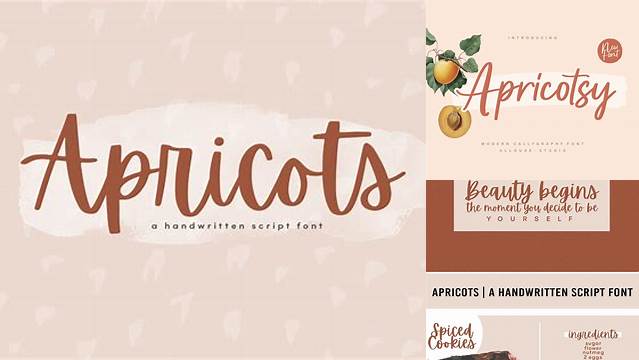
Apricots Font: Free Handwritten Script TTF Download
Are you looking to add a personal and charming touch to your designs? Look no further! In this article, we will explore the beauty and versatility of apricots handwritten script fonts, and how you can download them for free in TTF format. This font style, reminiscent of elegant calligraphy and personalized notes, can significantly enhance the aesthetic appeal of various projects. From invitations and greeting cards to branding materials and digital designs, the apricots handwritten script font brings a unique sense of warmth and authenticity. We'll delve into the characteristics that make this font so special and discuss the multitude of ways you can incorporate it into your creative endeavors. You'll also learn about the technical aspects of using TTF fonts, ensuring seamless integration with your design software. So, let's dive in and discover the wonderful world of apricots handwritten script fonts and how they can elevate your projects to the next level. Whether you're a seasoned designer or a budding creative, this guide will provide you with the information you need to start using this beautiful font today. We'll cover everything from finding reputable sources for free downloads to troubleshooting common issues you might encounter while installing and using the font. By the end of this article, you'll be well-equipped to add a touch of handwritten elegance to all your design projects, making them stand out with a personal and sophisticated flair. Get ready to transform your creations with the timeless beauty of apricots handwritten script fonts!
Why Choose a Handwritten Script Font?
Why should you choose a handwritten script font like the apricots font for your projects? Well, handwritten fonts bring a personal and intimate feel to any design. Unlike the clean and sometimes sterile look of traditional fonts, handwritten scripts mimic the natural flow and imperfections of human handwriting. This characteristic makes them ideal for projects where you want to convey warmth, authenticity, and a personal touch. Think about it: a handwritten font can make an invitation feel more special, a logo more approachable, or a website more inviting. The apricots font, with its unique flourishes and elegant curves, adds a layer of sophistication and charm that is hard to replicate with other font styles. Its versatility also makes it a fantastic choice for a wide range of applications. Whether you're designing wedding invitations, crafting social media graphics, or creating branding materials, this font can seamlessly adapt to your needs. The key is to understand the subtle nuances of the font and how to use it effectively. For instance, pairing it with a simple sans-serif font can create a balanced and visually appealing contrast. Furthermore, using it sparingly can maximize its impact, preventing your design from becoming overwhelming. The apricots handwritten script font truly shines when used thoughtfully, adding a touch of elegance and personality that resonates with your audience. So, if you're aiming to create designs that feel genuine and heartfelt, a handwritten script font like apricots is definitely the way to go. It's about adding that human element, that little bit of imperfection that makes your work stand out and connect with people on a deeper level. Itβs this connection that makes handwritten fonts so popular and effective in the world of design. It is time to take your design to new heights, with a personal style.
Key Features of the Apricots Handwritten Script Font
When considering the apricots handwritten script font, there are several key features that make it stand out and suitable for a variety of design applications. Firstly, the fluid and elegant strokes of the font mimic natural handwriting, giving it an authentic and personal feel. This is crucial for projects that require a touch of warmth and sophistication. The font's curves and loops are carefully crafted to ensure readability while maintaining its graceful appearance. This balance between legibility and aesthetics is one of the hallmarks of a well-designed script font. Another important feature is the variation in stroke thickness. Just like real handwriting, the apricots font incorporates subtle changes in line weight, adding depth and texture to the characters. This variation prevents the font from looking monotonous and artificial, enhancing its overall appeal. The spacing between letters, also known as kerning, is thoughtfully designed to create a harmonious flow. Properly kerned letters ensure that words are easy to read and visually pleasing. The apricots handwritten script font excels in this aspect, with each character seamlessly connecting to the next. Furthermore, the font typically includes a range of alternate characters and ligatures. These stylistic variations allow designers to add even more personality to their text. Alternate characters provide different forms for certain letters, while ligatures combine two or more characters into a single glyph, creating a more natural and cohesive look. These features are particularly useful for headlines, logos, and other display purposes. Finally, the apricots font is often available in TrueType Font (TTF) format, which ensures compatibility across various operating systems and design software. This accessibility makes it a practical choice for both professional designers and hobbyists. In summary, the key features of the apricots handwritten script font β its fluid strokes, varying thickness, thoughtful kerning, alternate characters, and TTF compatibility β make it a versatile and valuable asset for any design project. You can use its diverse set of features to create amazing and unique designs.